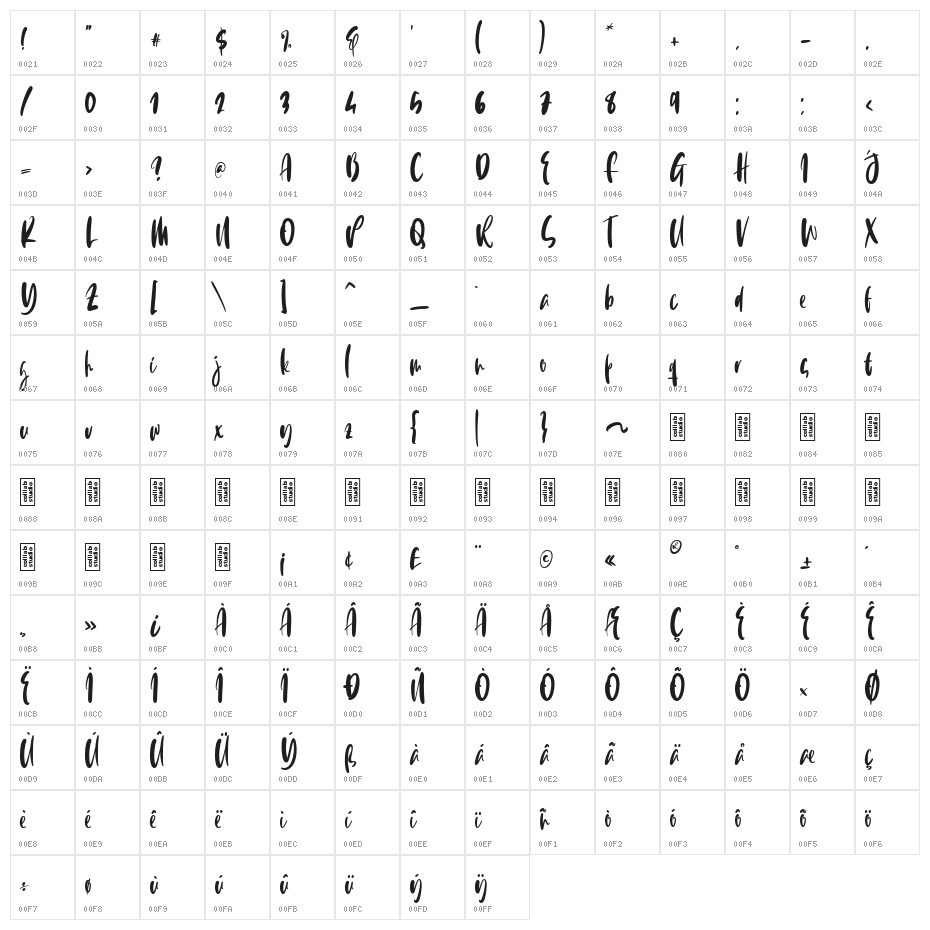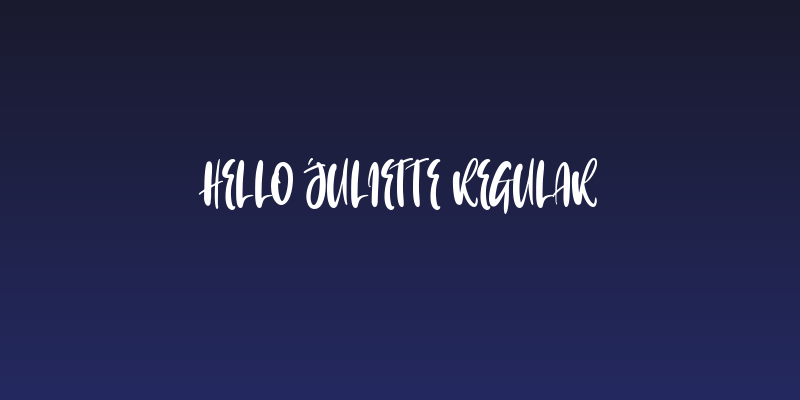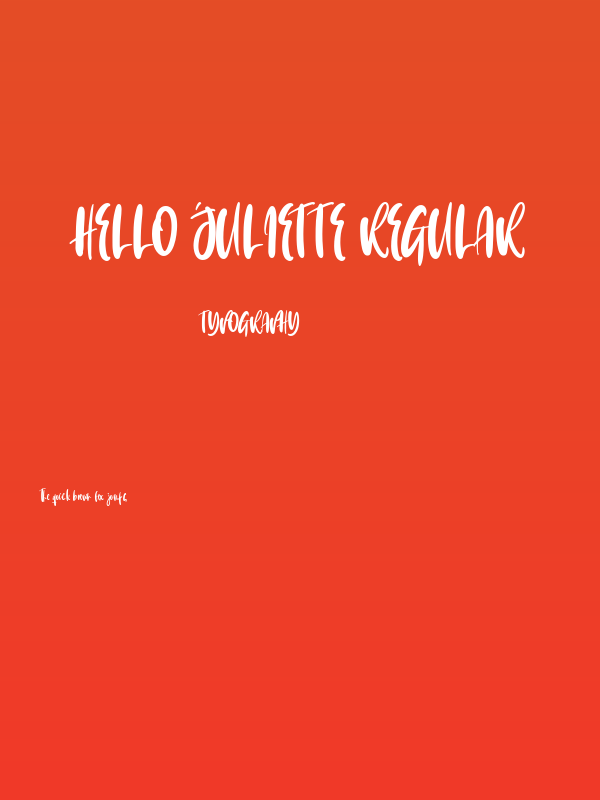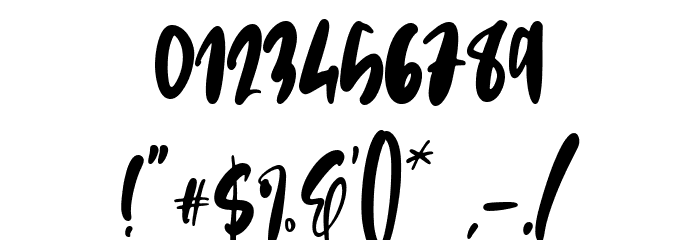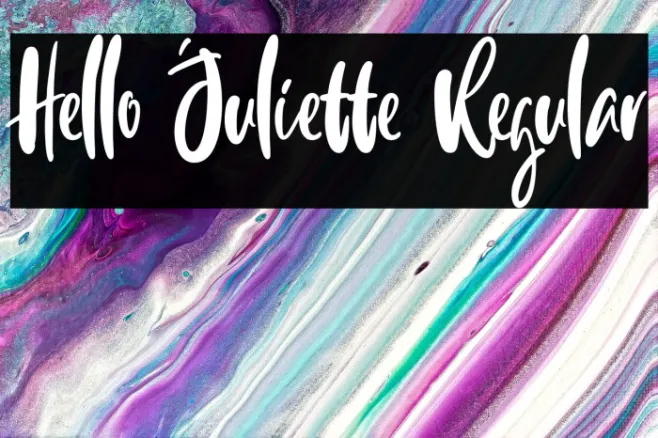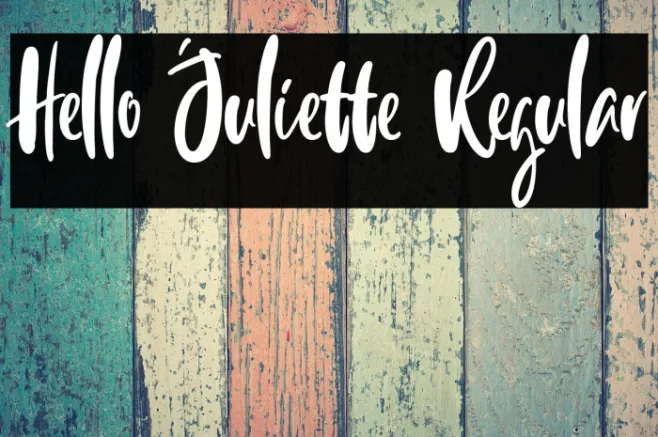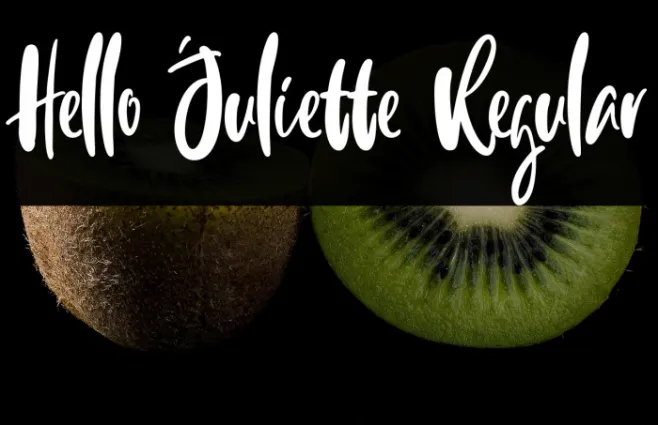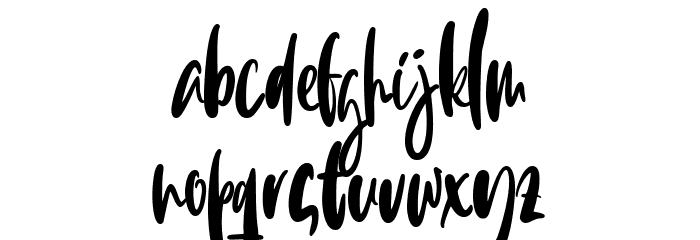
Hello Juliette Regular Font
Hello Juliette Regular Description
This font features a bold and expressive handwritten style, characterized by its fluid and dynamic strokes. The uppercase letters are tall and slightly condensed, with a playful yet sophisticated flair. The lowercase letters maintain a consistent flow, enhancing the font's overall cohesiveness. Numbers and special characters are crafted with the same attention to detail, ensuring versatility across different uses. The font's energetic and lively appearance makes it ideal for creative projects that require a personal touch.
| Proposed Projects | Ideal for greeting cards, invitations, branding, social media graphics, and personal projects that require a lively and personal touch. |